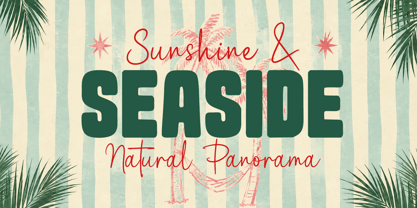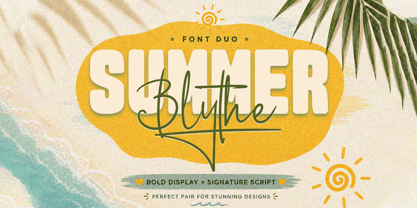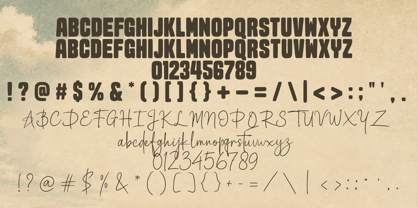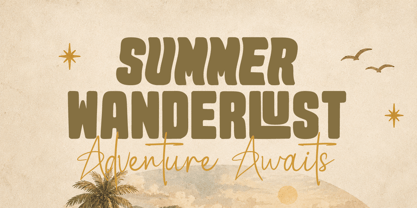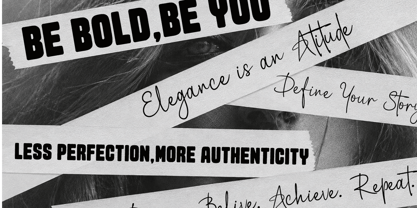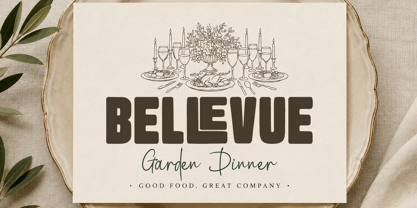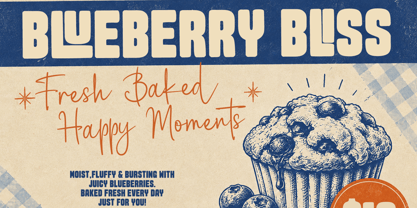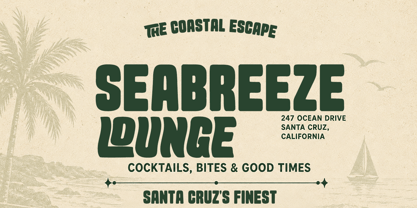
Summer Blythe
by Cocodesign
The Summer Blythe Font Family was designed by Muhammad Zaini and published by Cocodesign. Summer Blythe contains 3 styles and family package options. More about this family
Summer Blythe is a chic font duo that seamlessly blends a bold display font with a graceful signature script, achieving a captivating balance between robust typography and refined handwritten elements. The bold display style offers a confident and attention-grabbing appearance, while the signature script introduces a natural, expressive flair. Utilize these fonts together for stunning typography combinations or individually for diverse creative applications. Ideal for logos, branding, T-shirts, apparel, posters, invitations, wedding designs, packaging, labels, social media graphics, quotes, advertising, and much more. This versatile font family enhances any project with its unique style and charm, making it a perfect choice for both digital and print media.
Designers: Muhammad Zaini
Foundry: Cocodesign